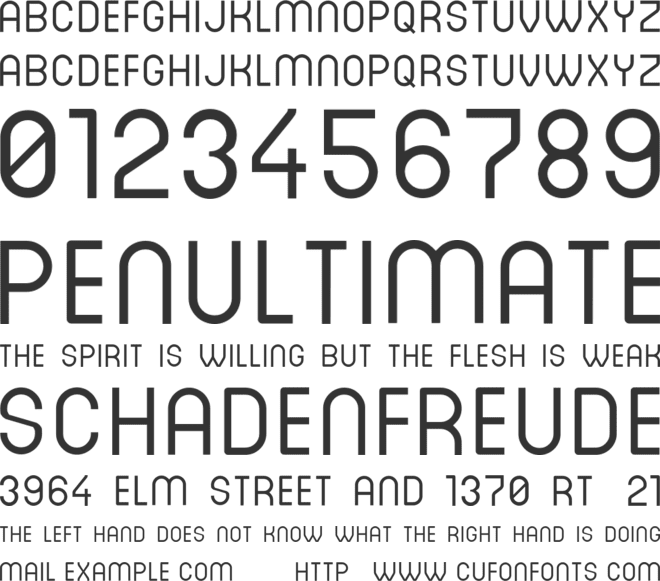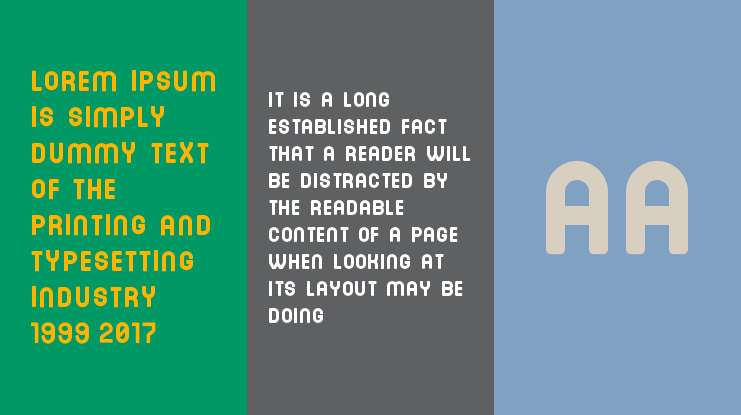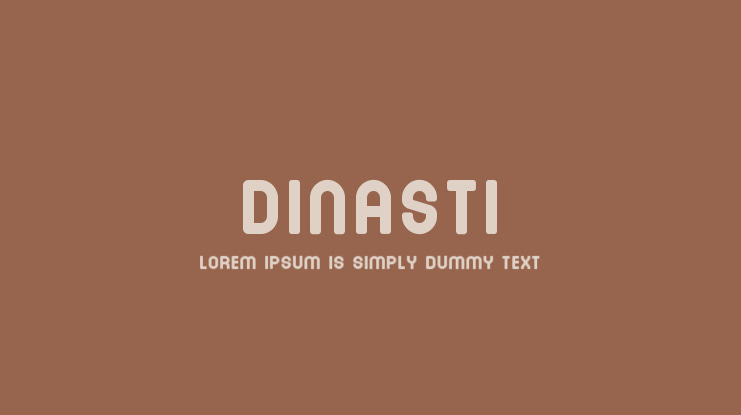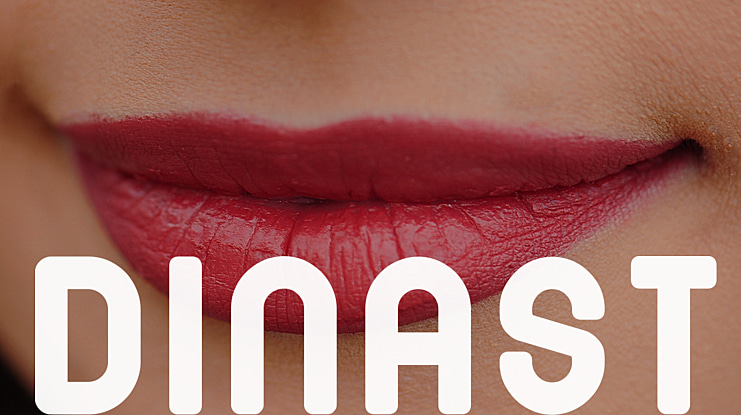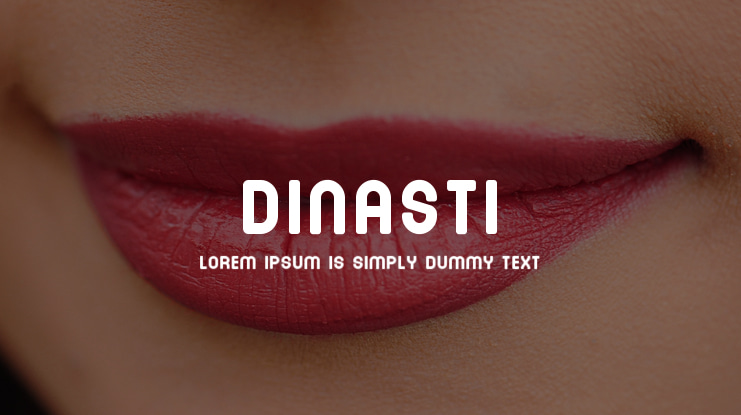
DINASTI Font Family
Michael Alexander
A completely free to use for commercial or personal purpose rounded-typeface with 2 weights available by Michael Alexander, Sanrok Studio. Indonesia.